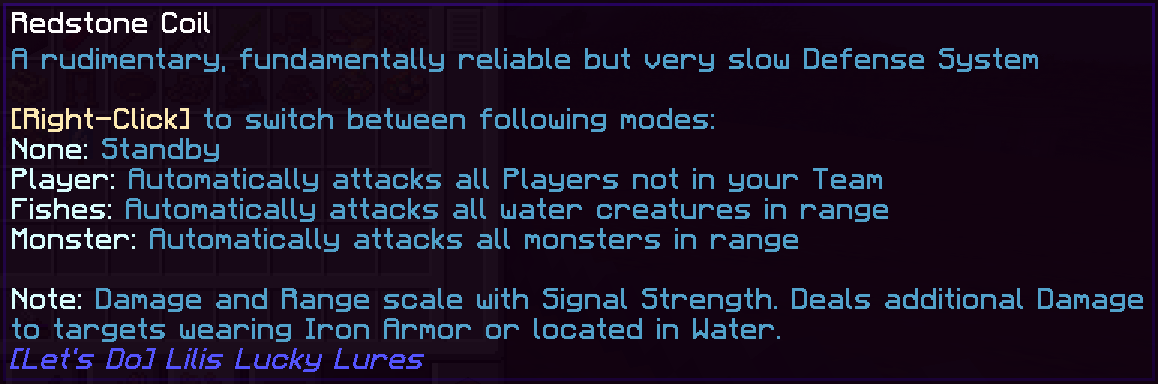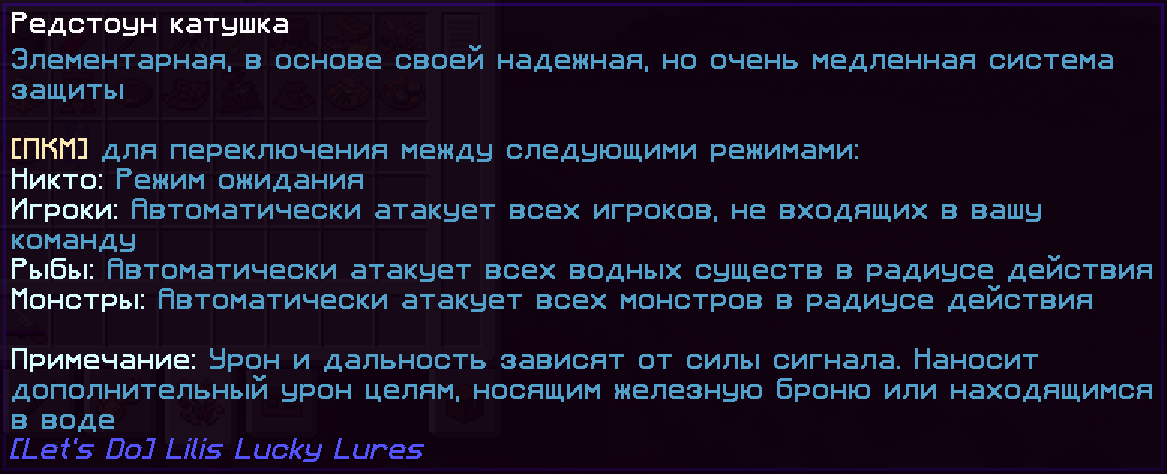
- Guardian better font is a resource pack that improves the readability of text in Minecraft by increasing its resolution and smoothing corners. Supports Russian and English languages
- Guardian better font - это ресурс-пак, улучшающий читаемость текста в Minecraft за счёт увеличения его резрешения и сглаживания углов. Поддерживает русский и английский языки